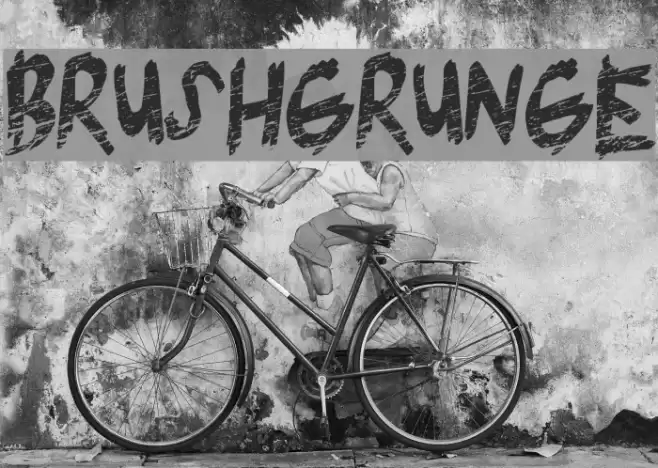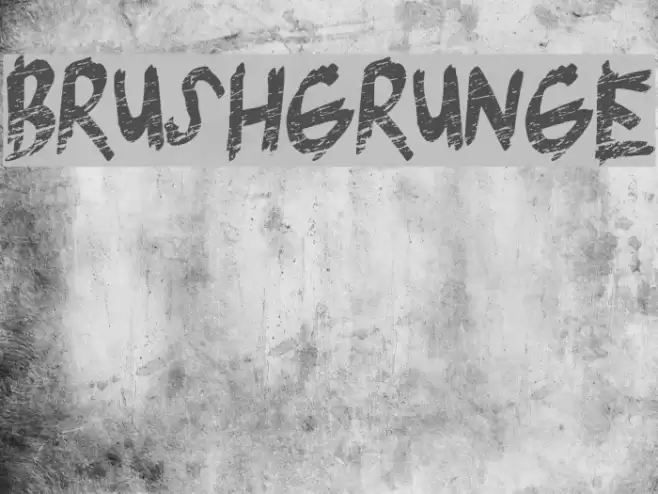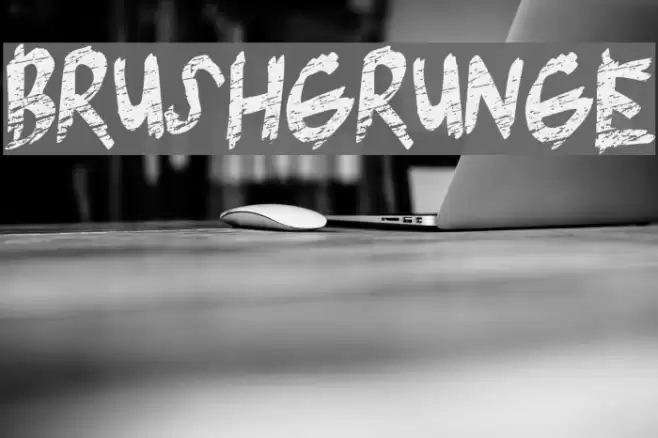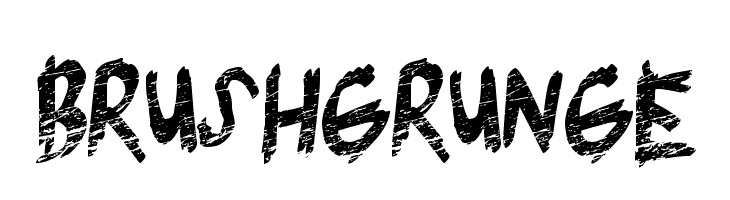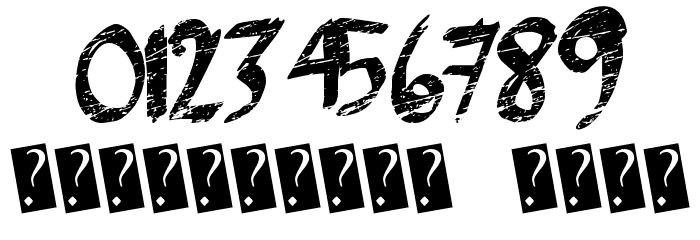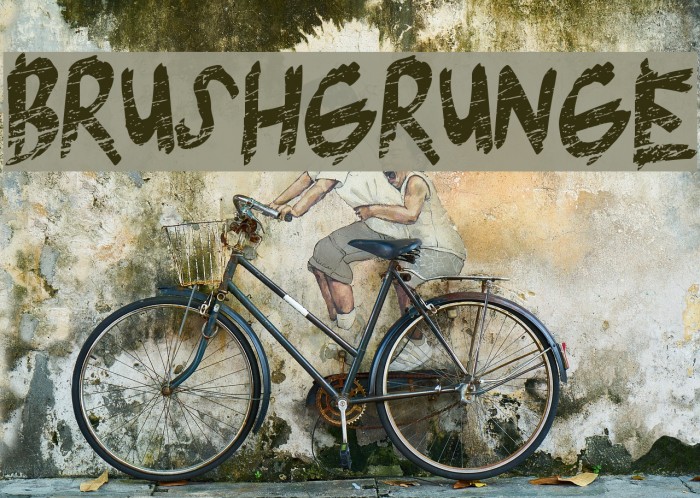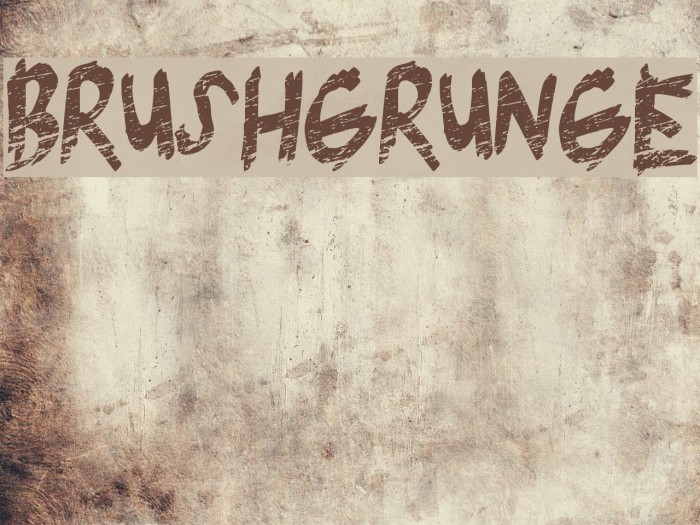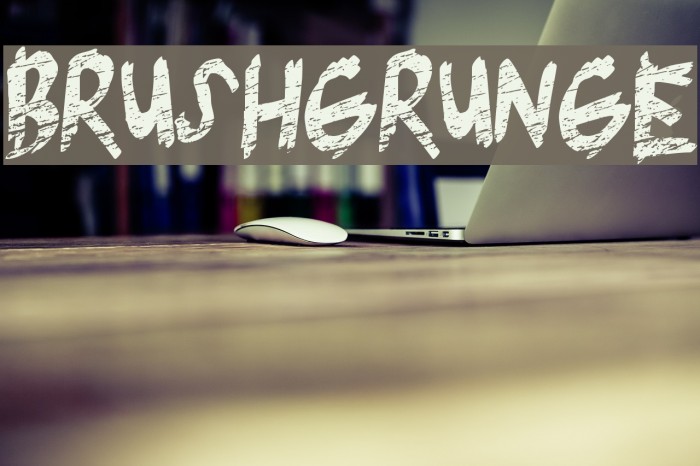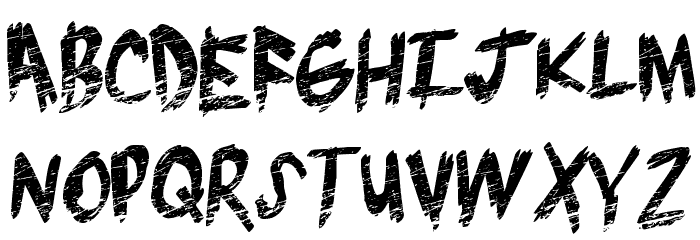
BrushGrunge Font
BrushGrunge Description
This font exudes a raw, edgy aesthetic with its brushstroke-inspired design. Each character appears as if it has been painted with a rough, textured brush, giving it a dynamic and energetic feel. The irregular edges and varying stroke thicknesses contribute to its grunge style, making it stand out with a rebellious flair. The uppercase and lowercase letters maintain a consistent style, while the numbers and special characters follow suit with the same rugged texture. This font is perfect for projects that require a bold, artistic touch.
A bold, brushstroke-inspired font with a grunge aesthetic from Uncategorized fonts.
- Proposed Projects: Ideal for album covers, streetwear branding, posters, and artistic projects that require a bold statement.
- Overall Style: Grunge, Artistic
- Use Case: Logos, Posters, Headlines